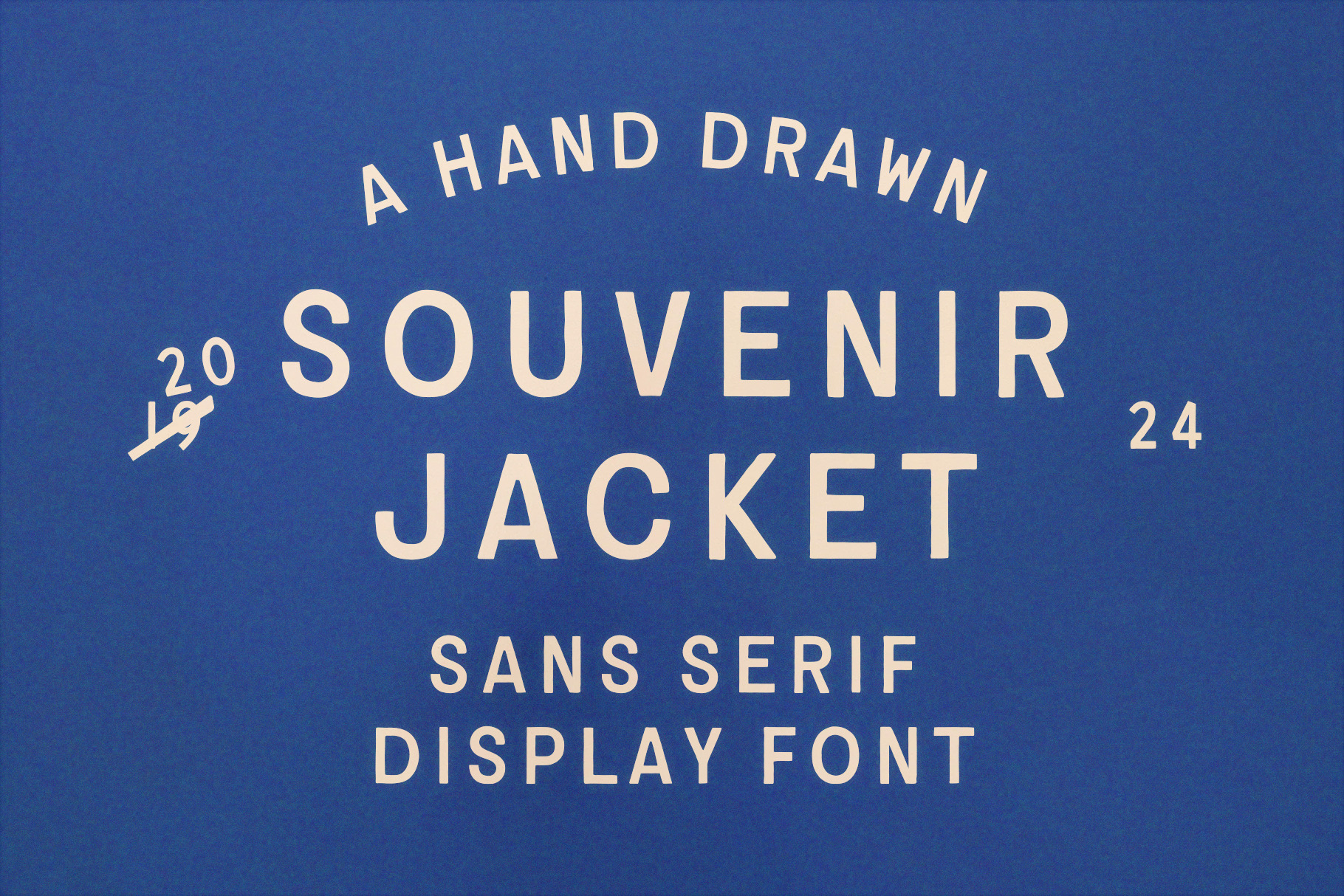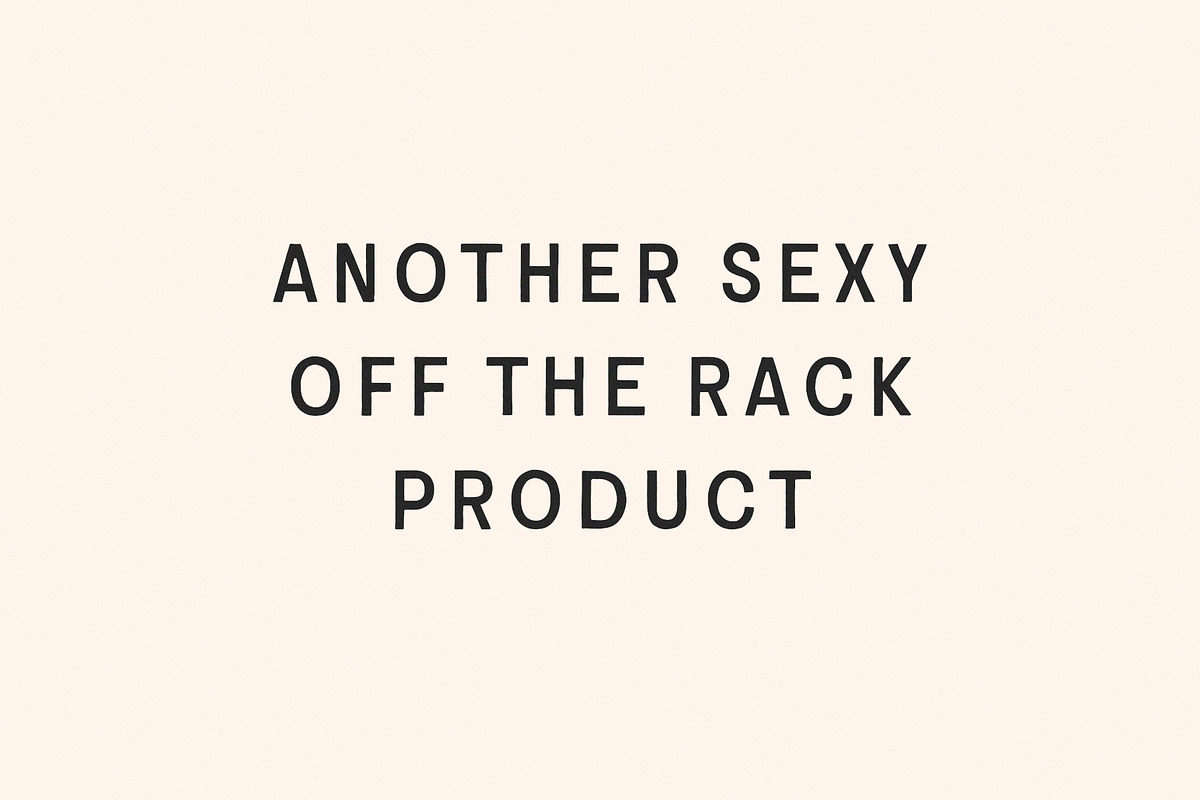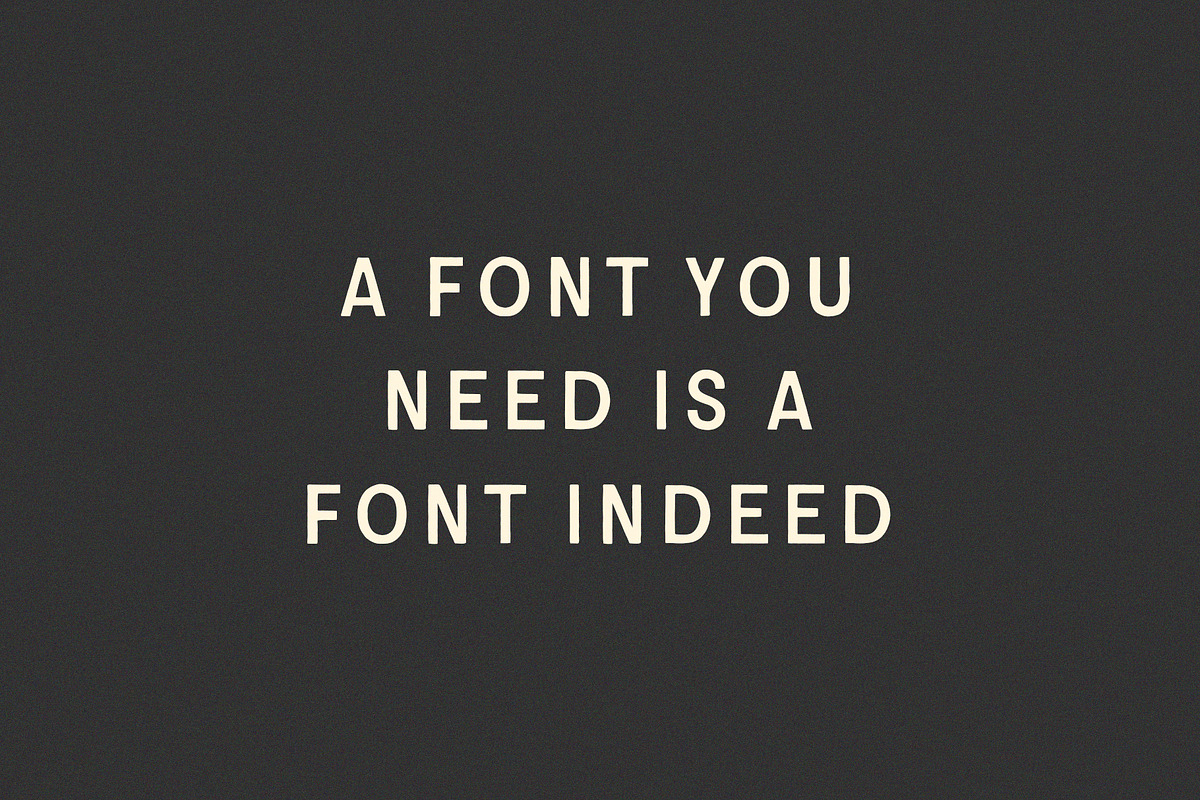
Souvenir Jacket | Hand Drawn Font
Souvenir Jacket was inspired by its namesake - embroidered jackets originally collected by the US military after WWII.
Drawn by hand to capture that vintage aesthetic with a modern edge, Souvenir Jacket is a sleek inky-looking sans serif typeface, perfect for titles or body text.
Contains uppercase A-Z, numbers 0-9, essential punctuation and linguistic support for over 50 languages